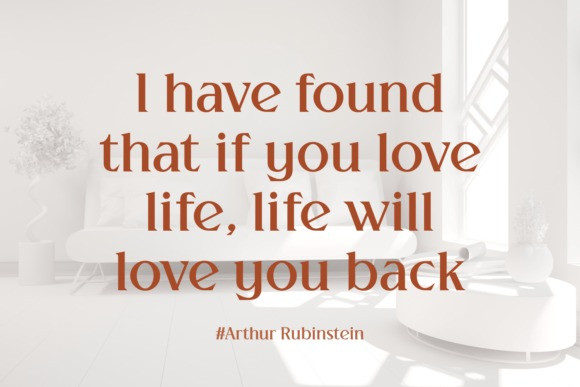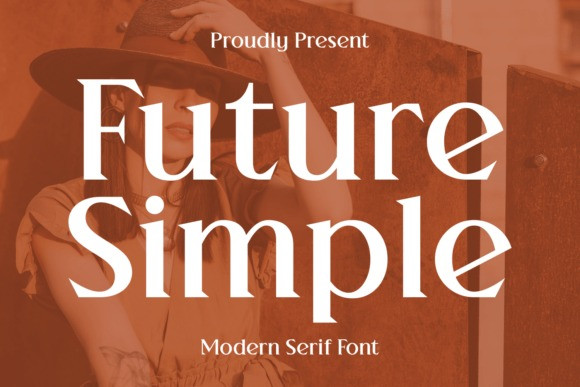
Future Simple Font
Future Simple Font, a modern serif font. The overall aesthetic is trendy, chic, and earthy, perfectly suiting a font designed for modern fashion, lifestyle, and branding projects.